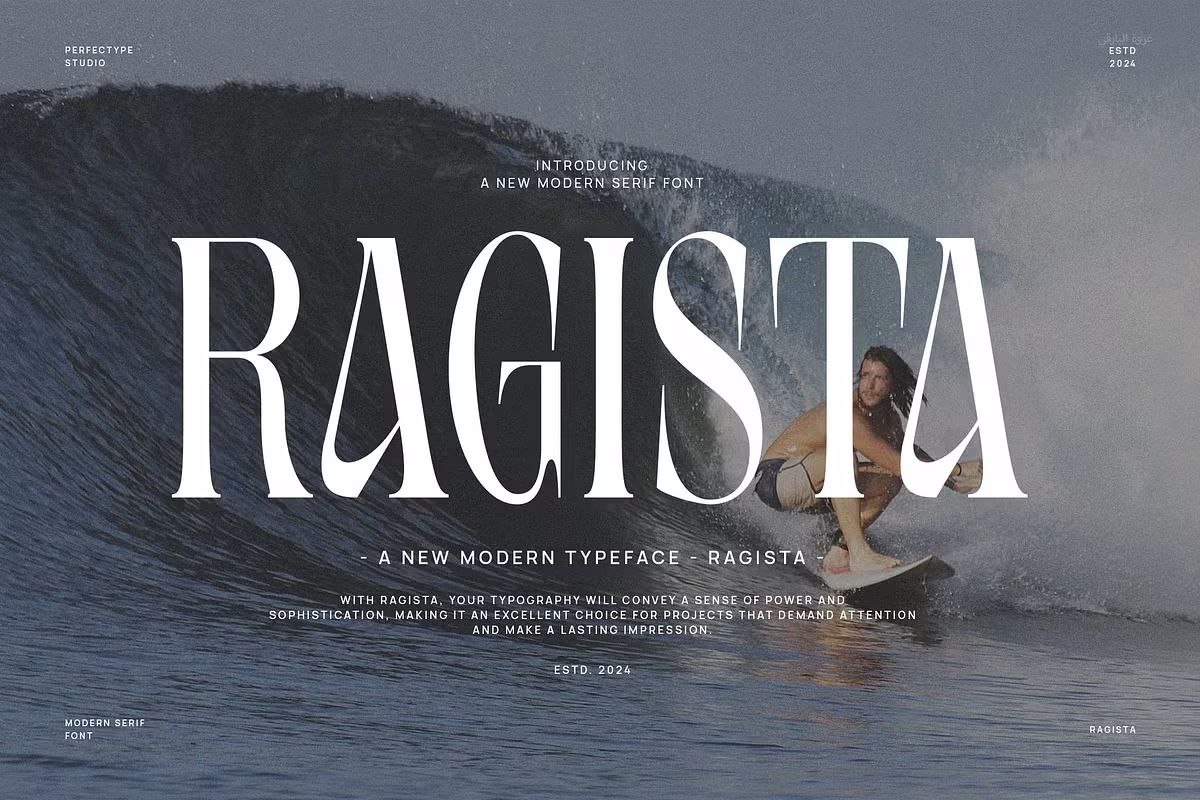
Ragista Elegant Serif Font Free Download
Ragista Elegant Serif Font Free Download is a sophisticated and refined serif typeface designed to bring elegance and class to any project. Featuring high-contrast strokes, delicate curves, and beautifully crafted letterforms, this font is perfect for luxury branding, high-end editorial design, wedding invitations, logos, and upscale product packaging.
With its timeless appeal and modern flair, Ragista Elegant Serif Font Free Download provides versatility for both display and body text, making it ideal for projects that demand professionalism, style, and a sense of prestige.